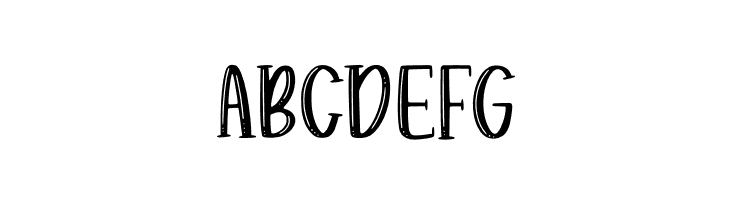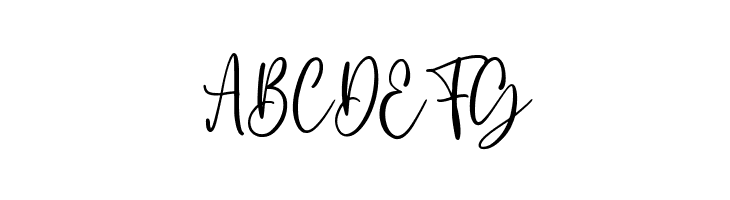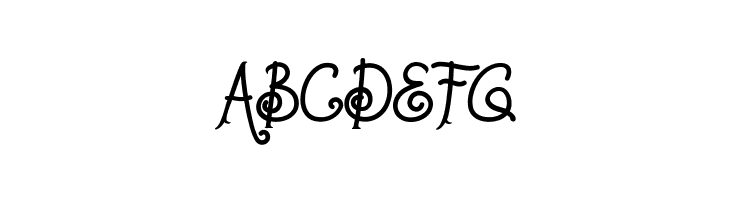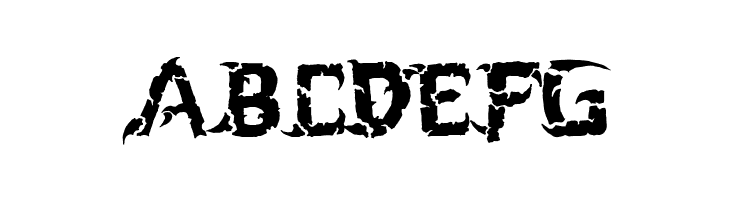
A lively and expressive script font with fluid, connected letterforms.
A lively script font with flowing, interconnected letterforms and a modern, playful vibe.
A flowing, elegant script font with swash elements and a handwritten style.
A lively and flowing script font with elegant, cursive letterforms.
A dynamic, brush-style script font with expressive cursive forms.
A whimsical and decorative font with playful curls and loops.
An elegant script font with flowing, cursive lines and intricate flourishes.
A lively and playful script font with smooth, flowing curves.
A rugged, distressed font with jagged edges and a bold appearance.
A playful, hand-drawn font with bold strokes and subtle serifs.
A playful, whimsical handwritten font with irregular, dynamic letterforms.
A bold slab serif font with strong, structured characters and uniform stroke width.